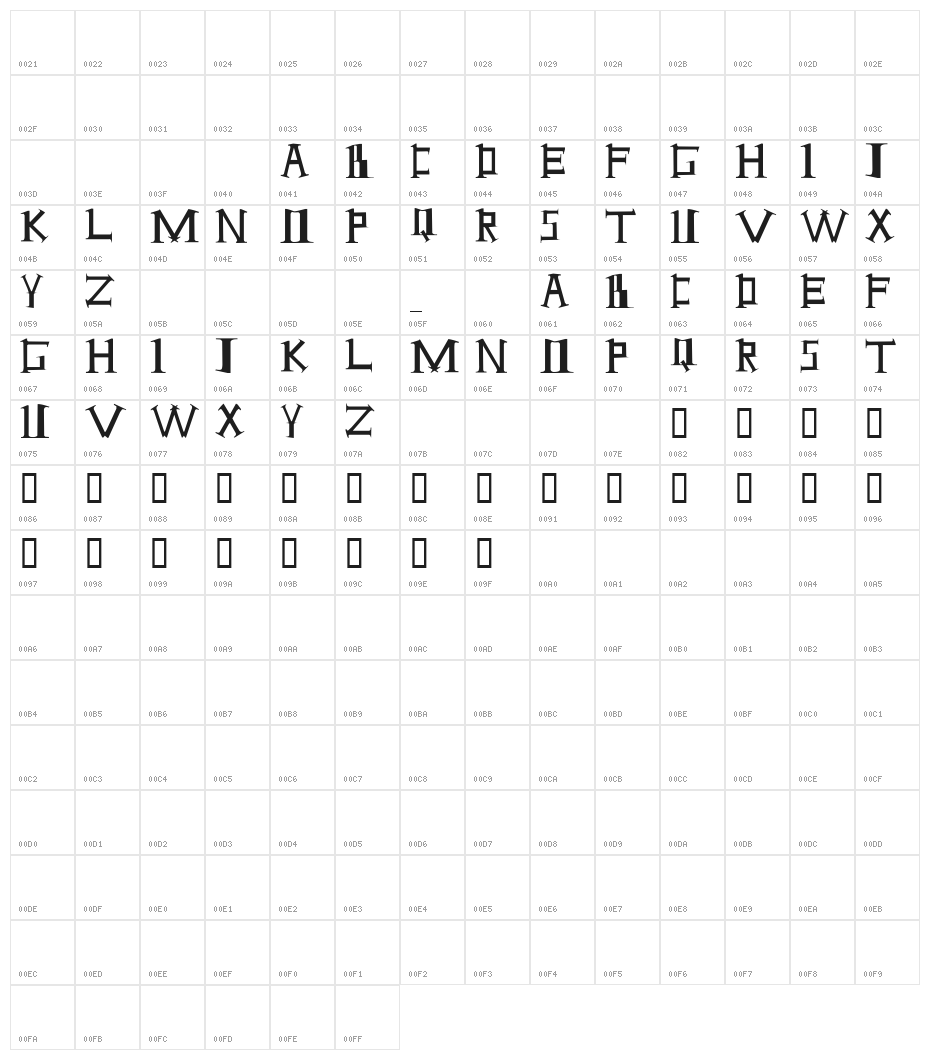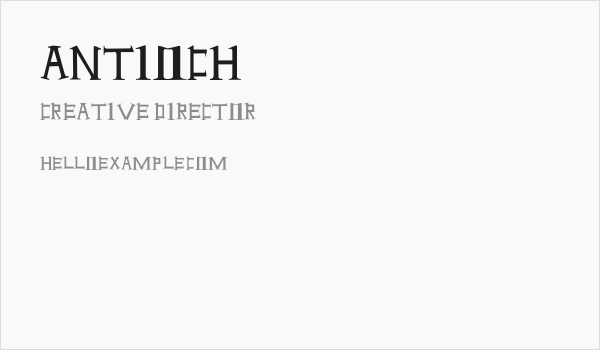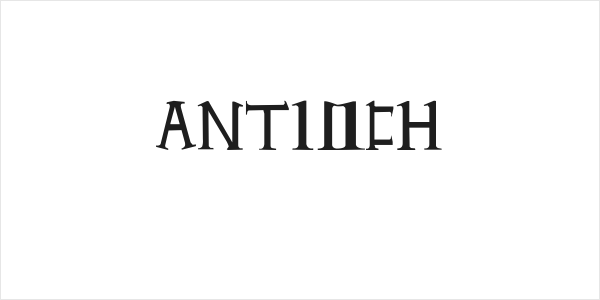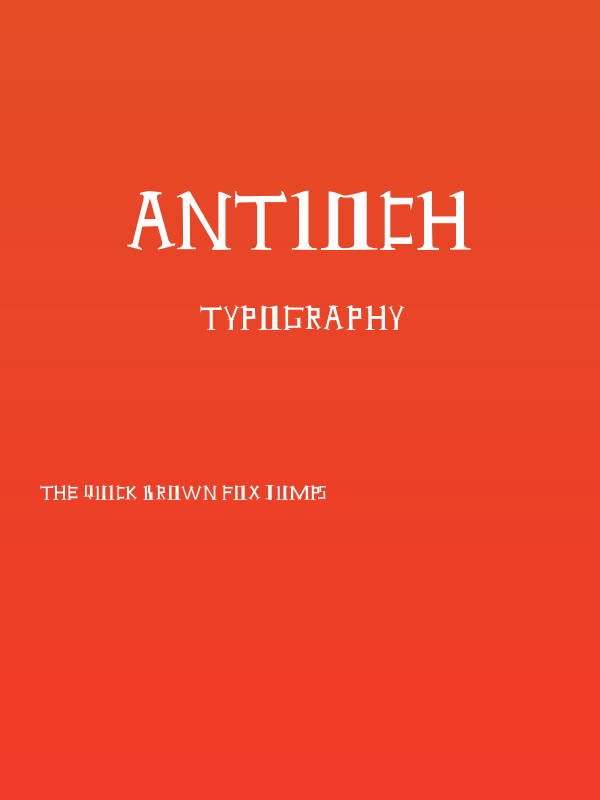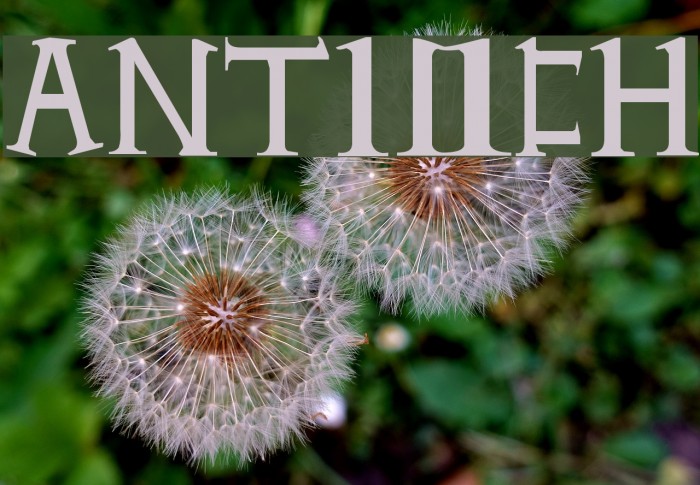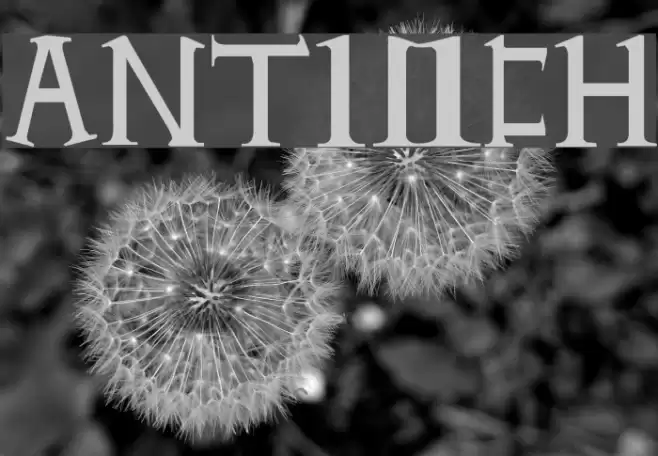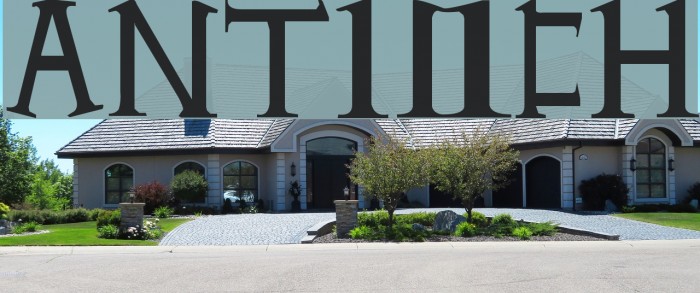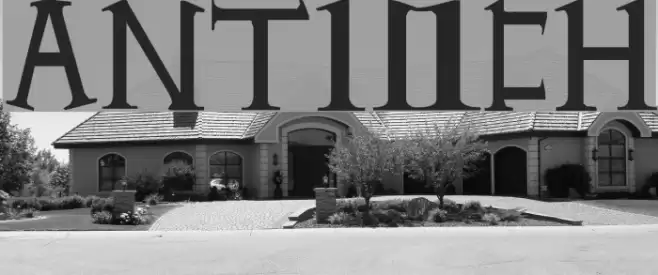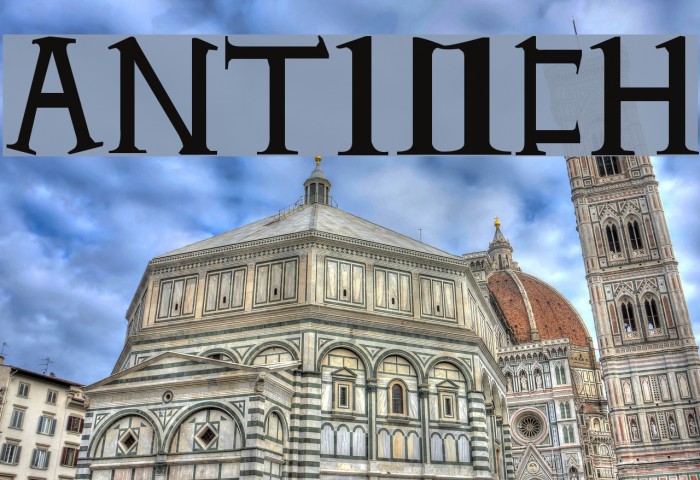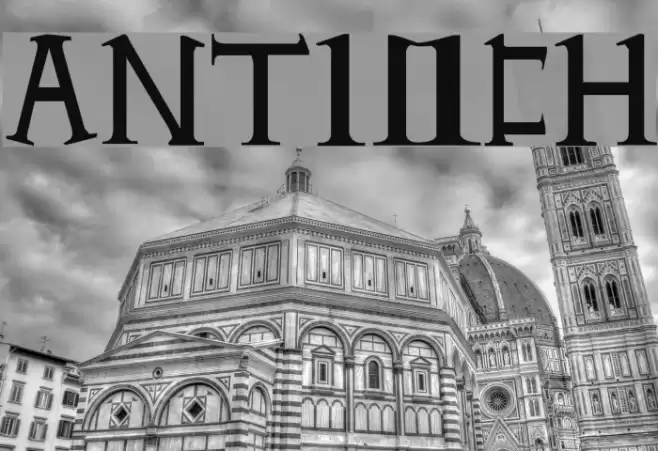
Antioch Font
Antioch Description
This font features a bold and striking design with sharp, angular edges and a gothic-inspired aesthetic. The characters are highly stylized, with unique embellishments that give them a medieval feel. The uppercase letters are particularly distinctive, with pointed serifs and intricate details that add to the font's dramatic appearance. The overall look is both powerful and elegant, making it suitable for projects that require a strong visual impact. The font's unique style makes it ideal for use in branding, posters, and other creative designs where a bold statement is desired.
| Overall Style | Gothic, Decorative |
| Use Case | Logos, Headlines, Posters |
| Proposed Projects | Ideal for branding, posters, and creative designs requiring a strong visual impact. |